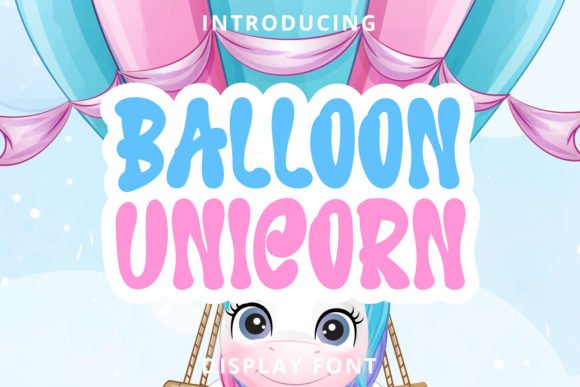
The Joy of Balloon Unicorn Font
Remember the thrill of creating a birthday card for a loved one, only to realize you have no idea how to make it look magical? You rummage through your stash of markers, glue, and glitter, but nothing seems to capture the whimsy you’re going for. That’s when the lightbulb moment strikes – you need the perfect font to make your masterpiece shine!
Enter Balloon Unicorn Font, a delightful display font that embodies the essence of playfulness and authenticity. This charming font is a perfect fit for any children’s activity or school project, adding a touch of magic to your creations. Whether you’re designing a logo, poster, or social media graphic, Balloon Unicorn Font is sure to bring a smile to your face and the faces of your audience.
As a designer, having access to unique and versatile fonts like Balloon Unicorn Font can be a game-changer. With its endless possibilities, you’ll be able to breathe new life into your designs and stand out from the crowd.
Balloon Unicorn Font Key Features
- Unique Characteristics: Whimsical and playful design, featuring a unicorn and balloon theme, perfect for adding a touch of magic to your designs
Review: Balloon Unicorn Font
Overall, I’m thoroughly impressed with the whimsical charm of the Balloon Unicorn Font. ✨ It’s perfect for adding a touch of magic to your designs, especially for kids’ projects or playful branding.
The font’s unique, hand-drawn style captures the essence of a unicorn’s whimsy, making it a standout choice for designers looking to create something truly special.
Some of the strengths of this font include:
- ✨ Unique and imaginative style that’s sure to grab attention
- ✨ Perfect for adding a touch of whimsy to designs
- ✨ Suitable for kids’ projects, playful branding, or fantasy-themed designs
- ⚠️ Limited versatility – may not be suitable for formal or professional designs
- ⚠️ May be difficult to read at small font sizes due to the hand-drawn style
- ⚠️ Limited character set – may not include all the characters you need for your design
Overall, I think the Balloon Unicorn Font is a wonderful addition to any designer’s toolkit. While it may have some limitations, its unique charm and whimsical style make it a standout choice for the right projects.
Use Balloon Unicorn Font for:
– Whimsical party invitations and decorations
– Children’s book illustrations and graphics
– Social media graphics and advertisements
Remember to adjust the font size and color to match your design and ensure readability.